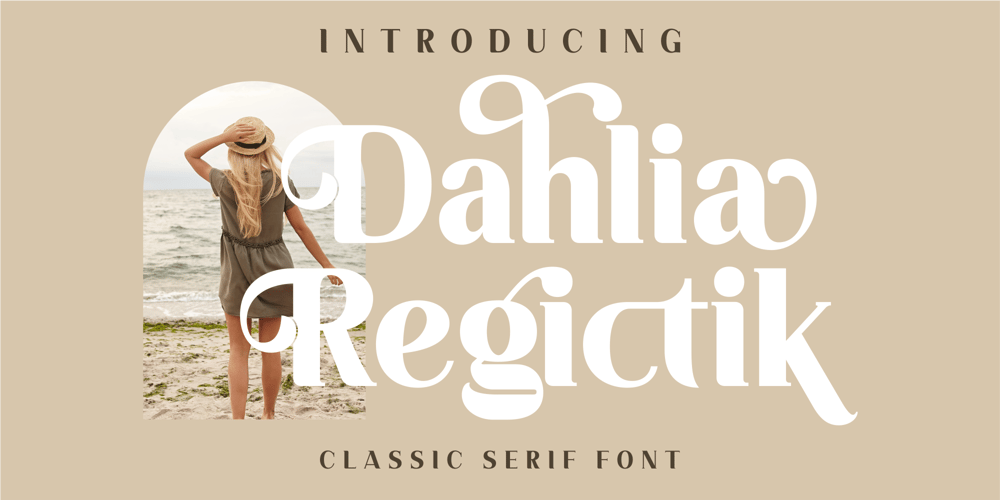
Dahlia Regictik
Dahlia Regictik font
Dahlia Regictik Font Family was designed by Heru Utama Putra and published by Letterena Studios. Dahlia Regictik contains 2 styles and family package options. Dahlia Regictik – Luxury Serif Font, from Letterena, is a Luxury serif font, suitable for any projects such as: logos, branding projects, homeware designs, product packaging, mugs, quotes, posters, shopping bags, t-shirts, book covers, name card, invitation cards, greeting cards, label, photography, watermark, special events, and all your other luxury and beautiful projects that need a Luxury serif taste.